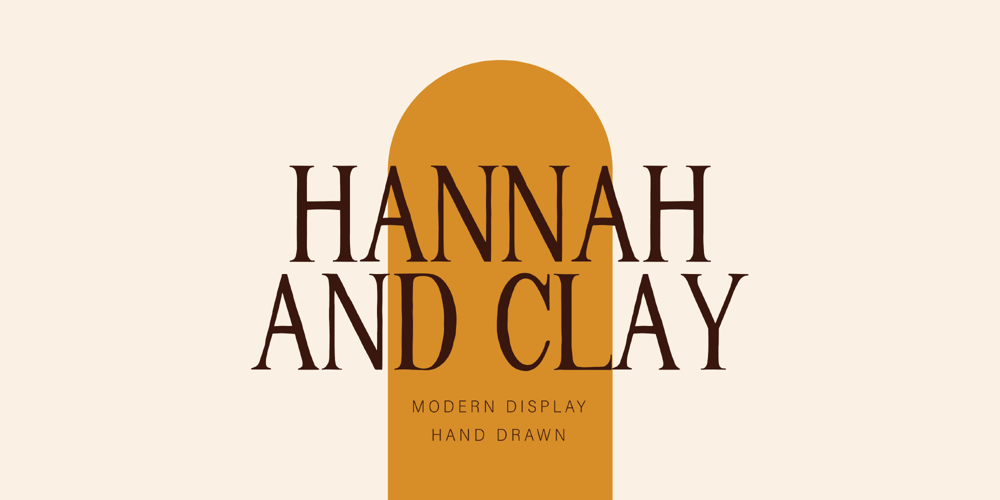
Hannah and Clay Font Family was designed by Loryn B and published by loryn ipsum. Hannah and Clay contains 1 styles and family package options. HANNAH & CLAY | handwritten serif fontAfter the love that MILK & CLAY received, I thought I would make a serif version for all you serif typeface lovers out there. It is the handwritten version of one of my favourite fonts ‘hannah hannah’. I absolutely love how this turned out and the unpolished warm feeling this font has. It feels very high-end, but still approachable, inviting and grounded because of its soft edges and human feel. I hope you love it as much as I do xx